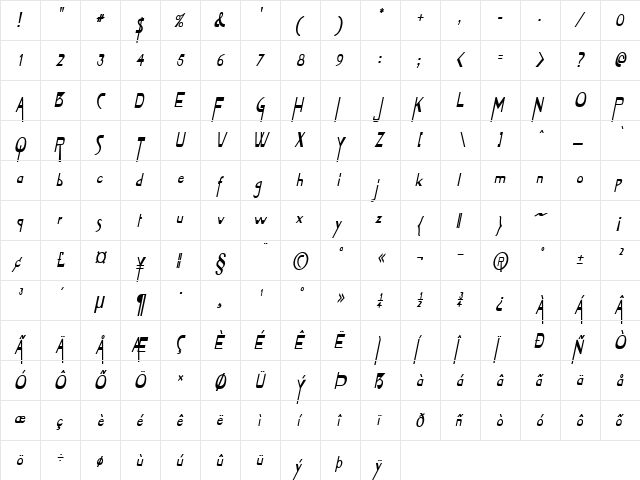
TabletCondensed Bold Italic Font Preview
Design Context for TabletCondensed Typeface
TabletCondensed offers clean, dependable letterforms without strong stylistic allegiance, making it a practical choice for designers who need flexibility. The dynamic lean of this cut emphasises speed and emphasis in any layout. Its bold stroke weight gives it real presence on the page. Its narrow stance lets it pack a punch even in space-constrained designs.
Pro Tip: Try TabletCondensed for annotation and caption copy alongside an upright companion — the contrast in angle creates a dynamic but ordered typographic system.